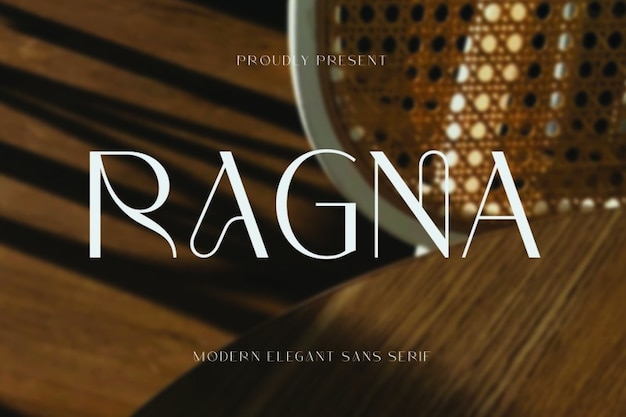
Ragna
Ragna Font
"Ragna" font seamlessly blends modern elegance with timeless classicism. Each letter exudes sophistication, perfect for upscale projects. Whether for branding, invitations, or editorial work, "Ragna" adds a touch of refined charm, ensuring your text stands out with its sleek and stylish appearance.